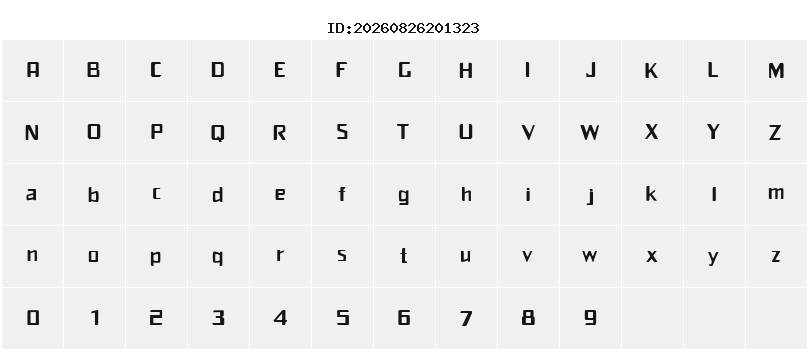
franschi Preview
• Font Name: franschi
• Font ID: franco: franschi: 2012
• Full Font Name: franschi
• Version: Version 5.001 2012
• PostScript Name: franschi
• Character Count: 313
• Designer: franco
• Manufacturer: franco
About franschi.ttf
franschi.ttf is a modern, elegant sans-serif font designed for ultimate readability and visual harmony. Perfect for branding, headlines, web design, and print materials.